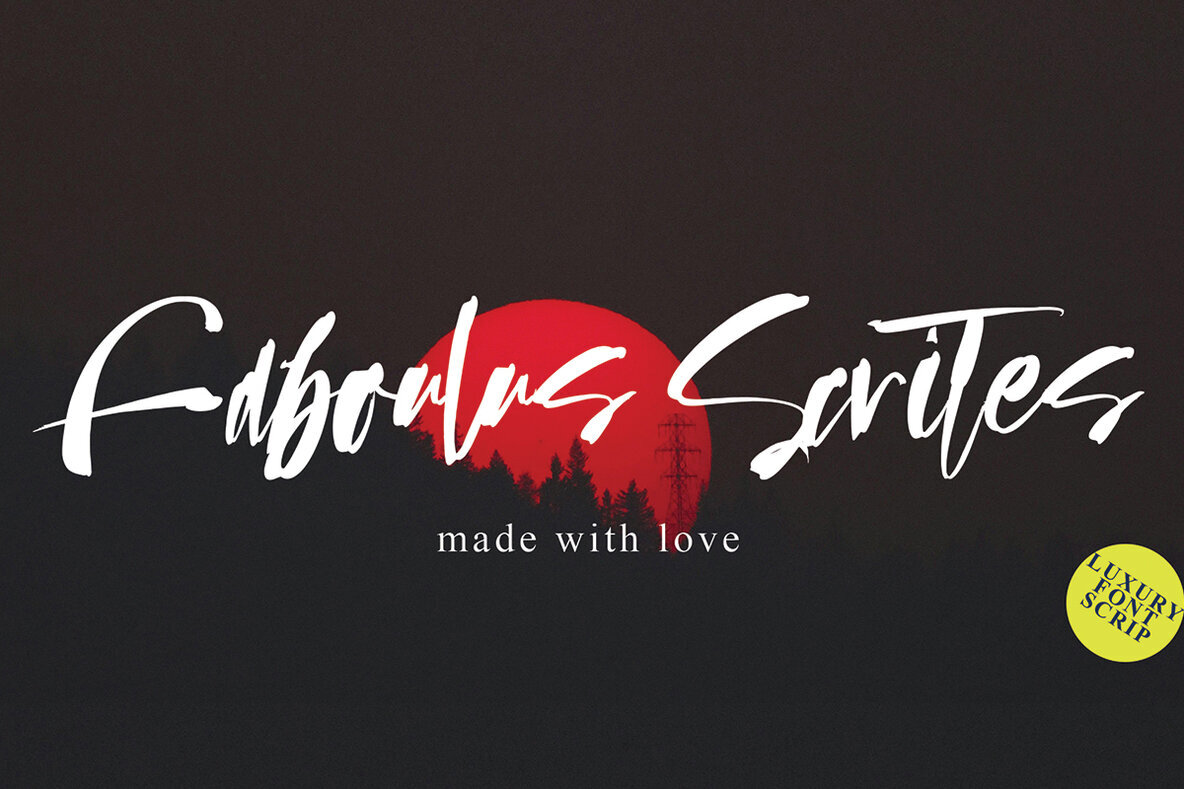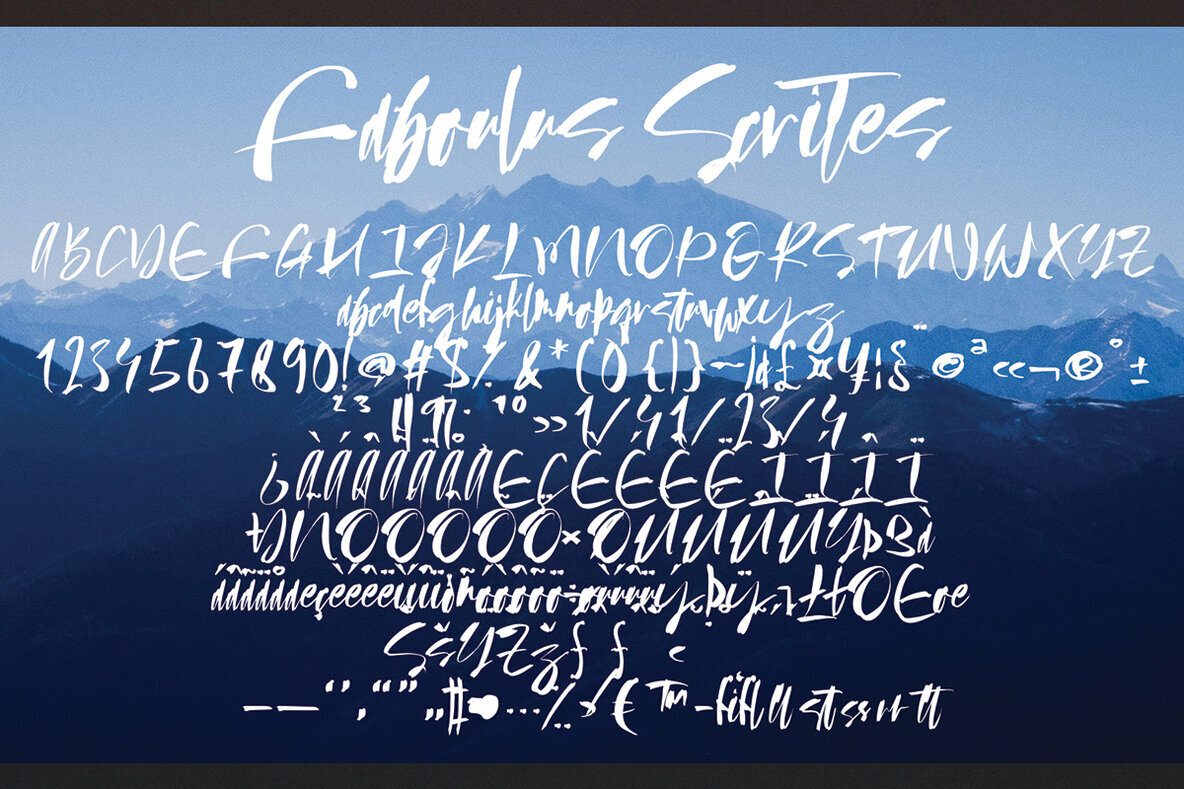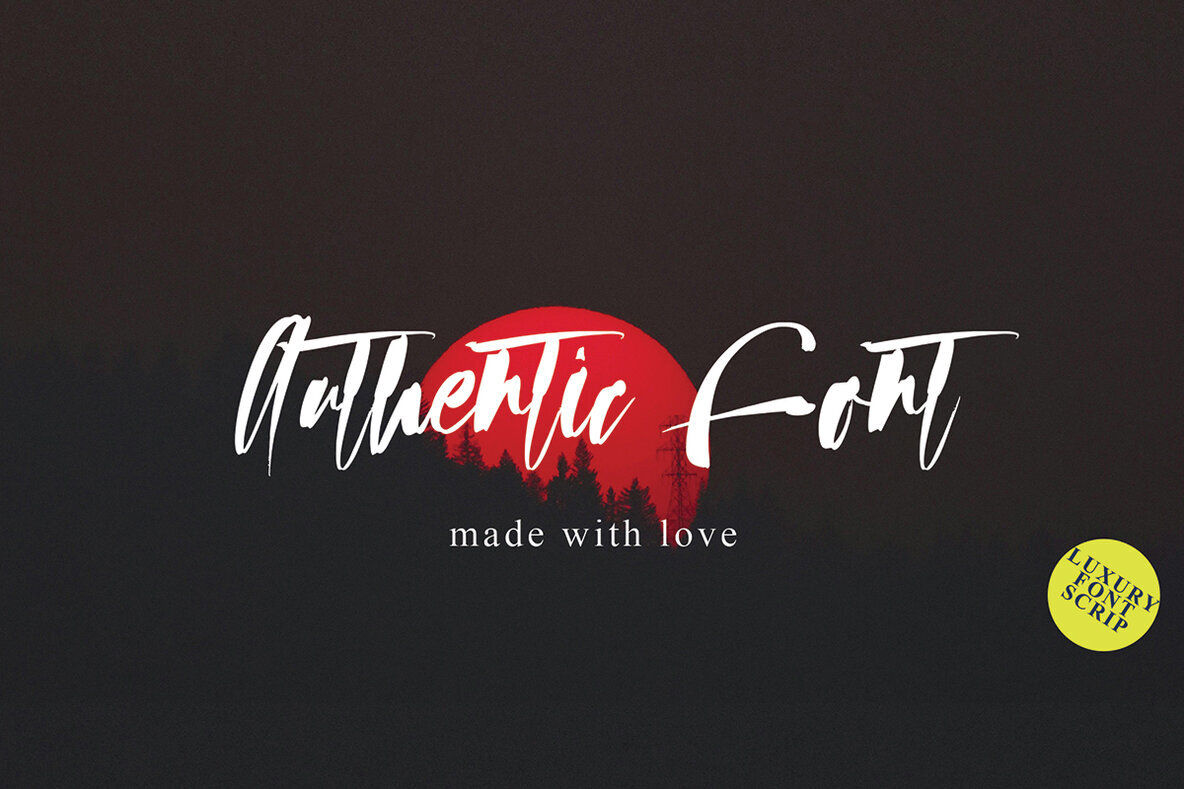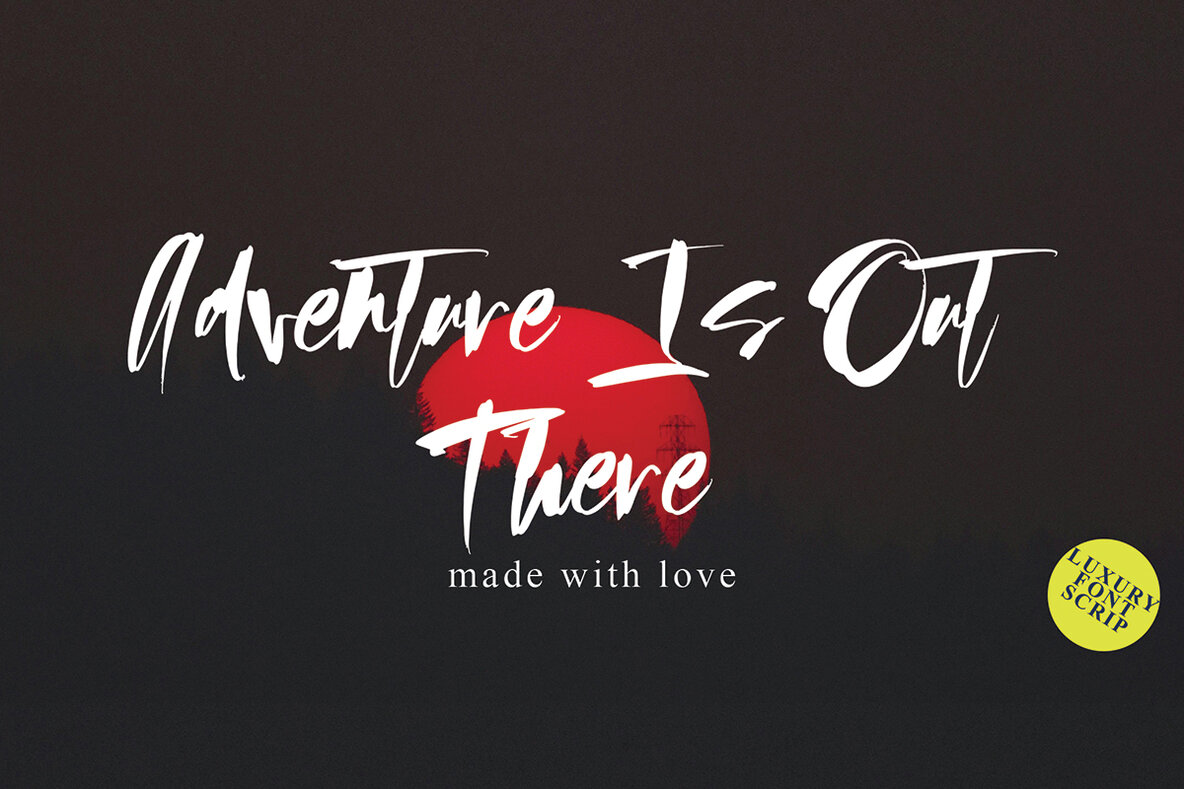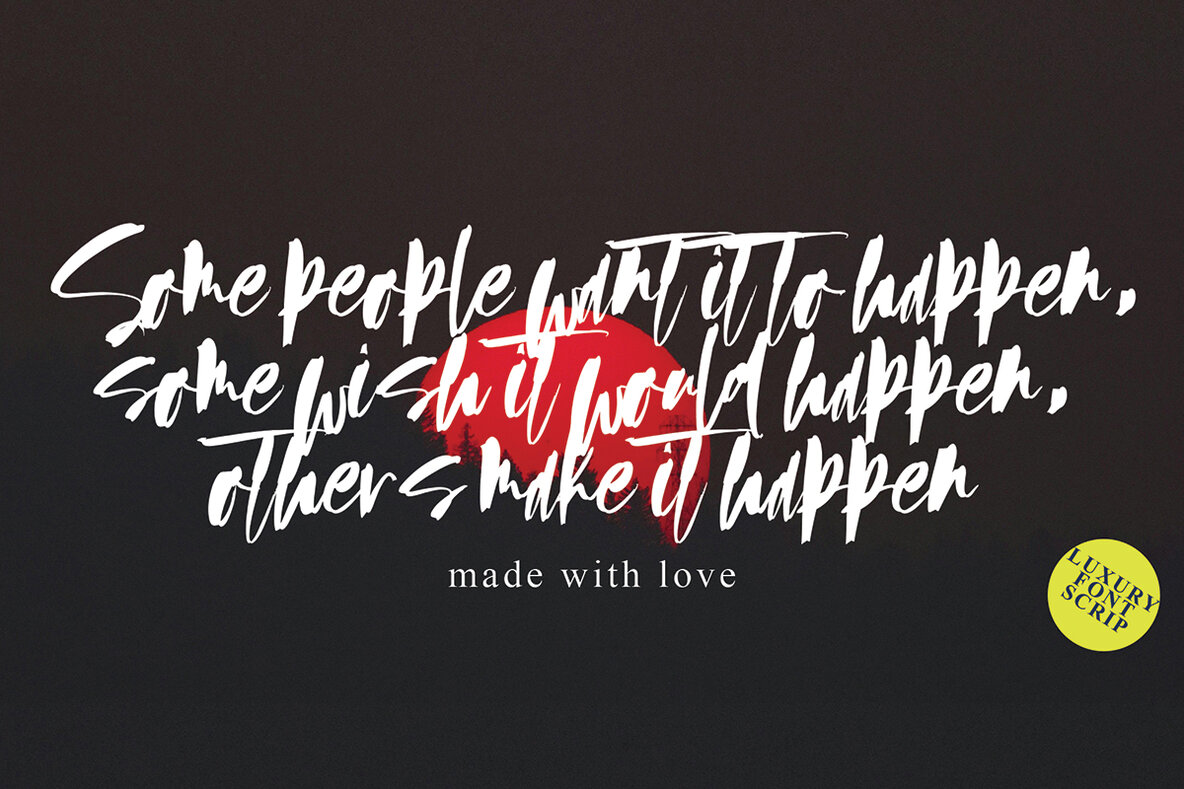
Faboulus Scrites Font
Faboulus Scrites
Introducing Fabulous Scrites, a fresh style innovation perfect for diverse design projects. Whether you're crafting a quote, designing a logo, or setting a blog header, this font can beautifully elevate your creative endeavors. Its versatile design adapts seamlessly, enhancing posters, branding material, letters, invitations, and stationery. Key FeaturesFabulous Scrites by MissinkLab Studio